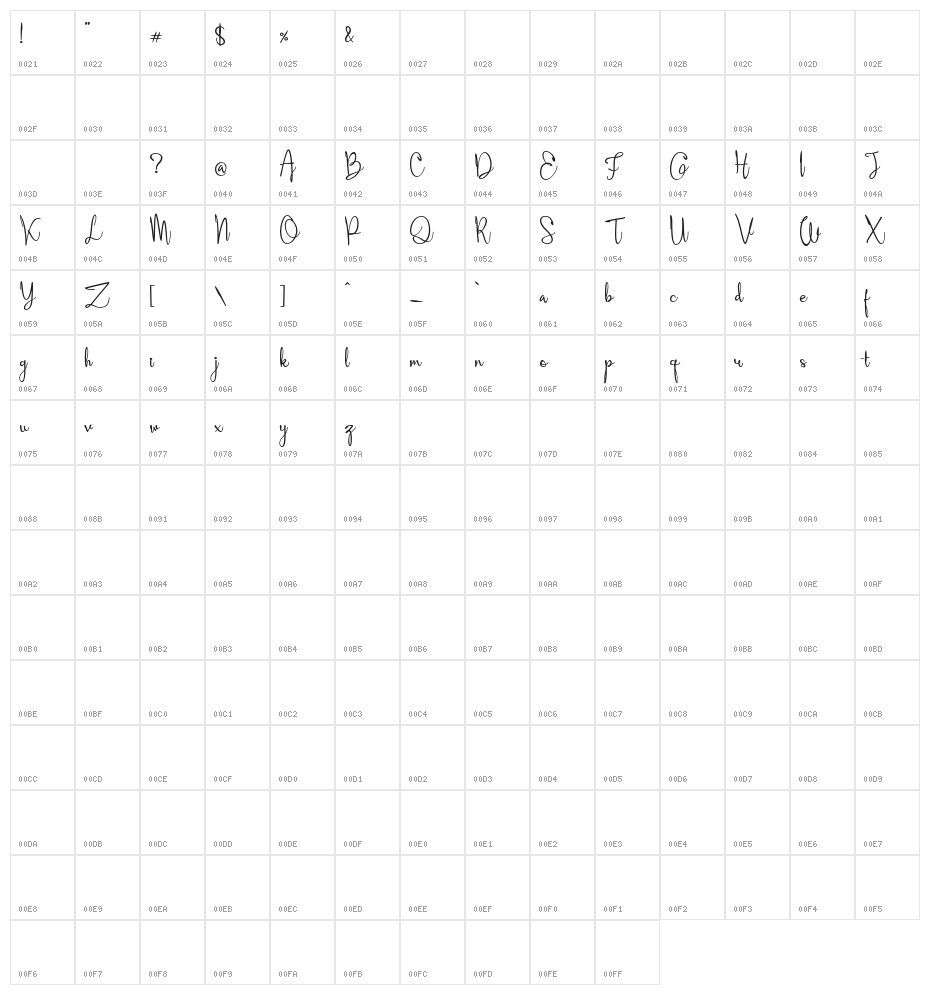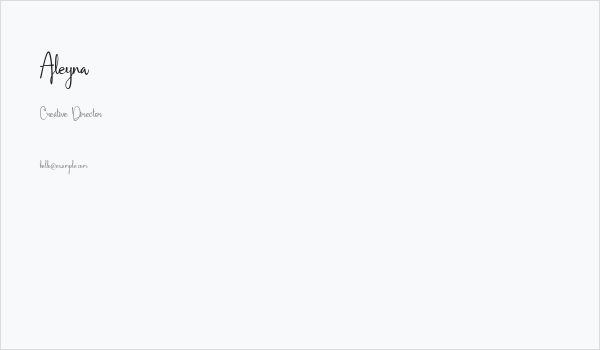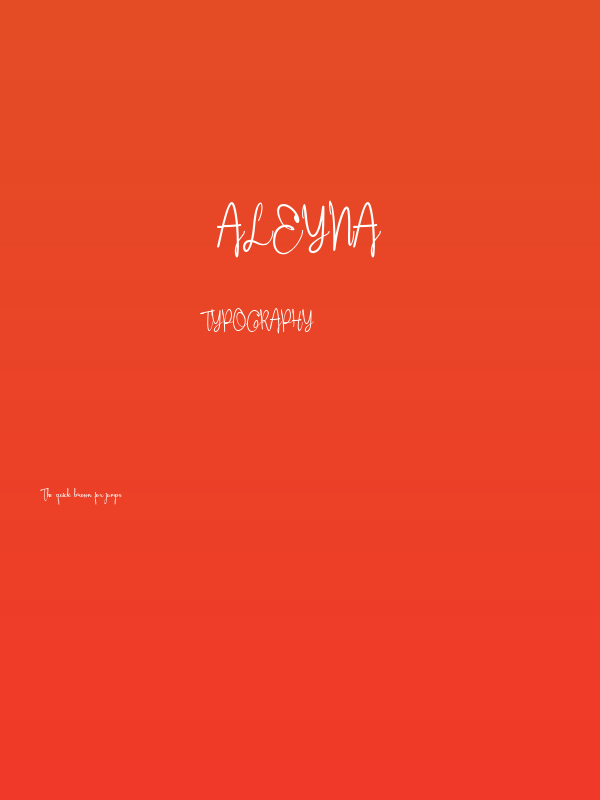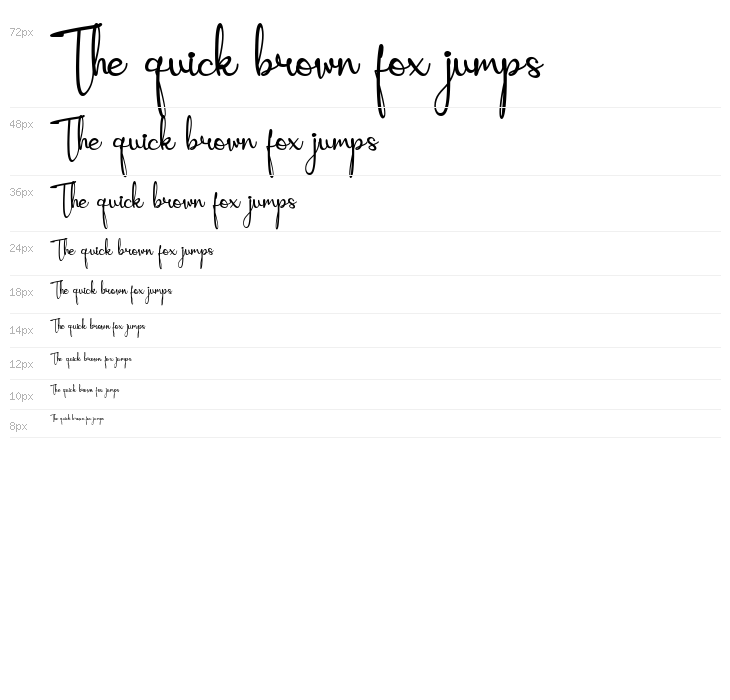
Aleyna Font
Aleyna Description
This font features a whimsical and playful script style with a handwritten appearance. The letters are characterized by their flowing, interconnected strokes, giving it a lively and dynamic feel. The uppercase letters are bold and expressive, while the lowercase letters maintain a consistent fluidity. The font includes a variety of special characters, enhancing its versatility for creative projects. The overall design is elegant yet casual, making it suitable for a range of applications where a personal touch is desired.
| Proposed Projects | Ideal for wedding invitations, greeting cards, personal branding, and creative projects requiring a personal touch. |